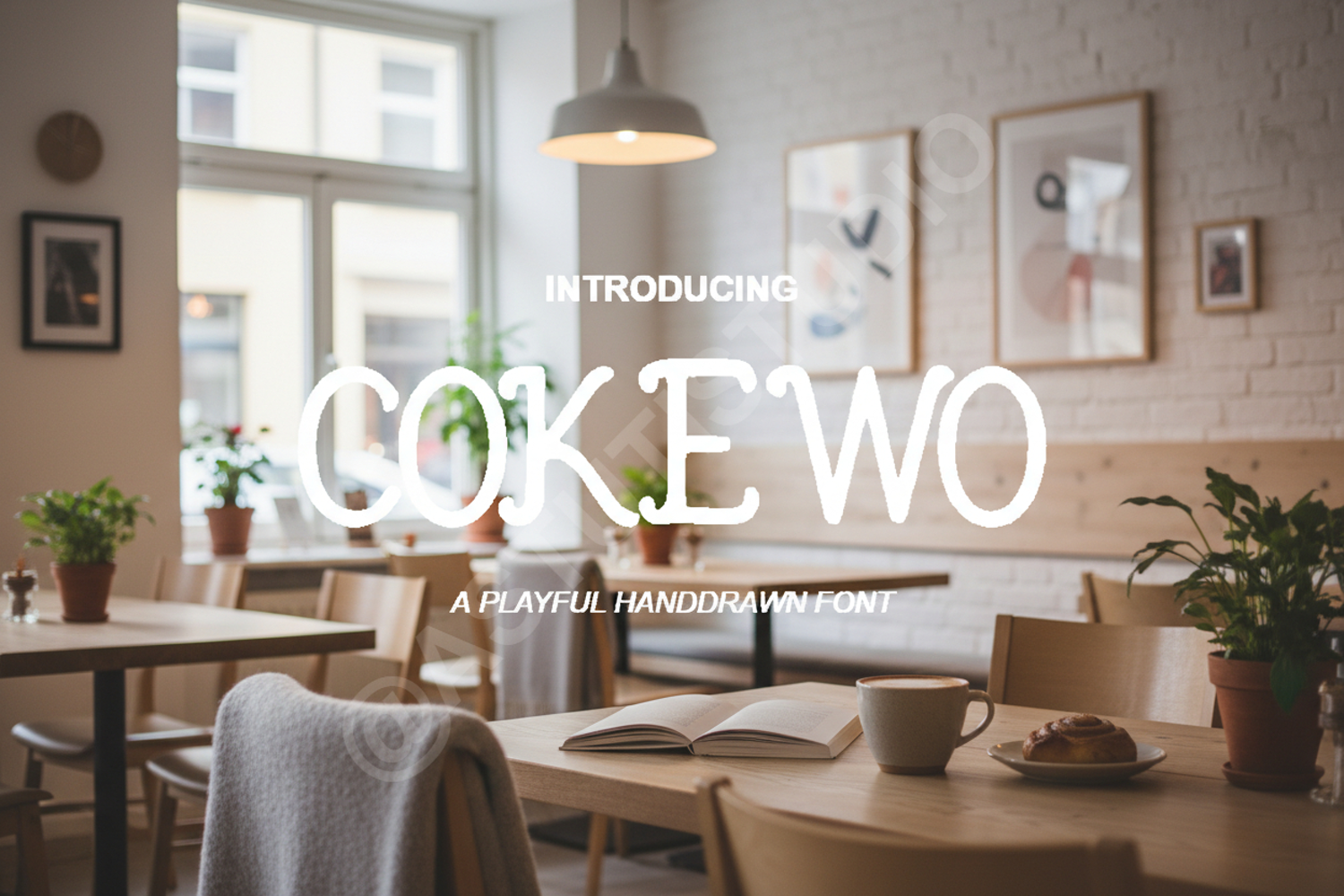
Cokewo - Modern Elegant Serif Display Font
Cokewo
Cokewo is a premium serif font meticulously crafted to bring a touch of elegance and modern sophistication to your creative projects. With its clean lines, balanced proportions, and timeless appeal, this font is an essential tool for designers seeking to elevate their visual identity and create a lasting impression.
- Comprehensive set of standard ligatures
- Multilingual character support for global accessibility
- Luxury Branding and Logo Design: Perfect for creating high-end identities that exude professionalism.
- Wedding Invitations and Stationery: Adds a refined and romantic touch to special event materials.
- Editorial Layouts: Ideal for magazine headlines, book covers, and sophisticated digital articles.
- Social Media Graphics: Enhances your brand presence on Instagram, Pinterest, and more.
- Product Packaging: Elevates the perceived value of your products with clean, high-end typography.